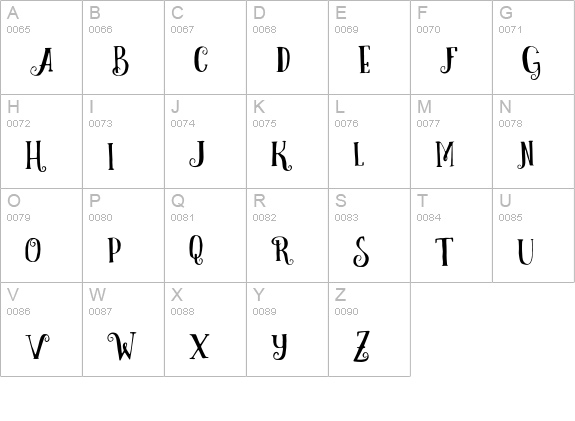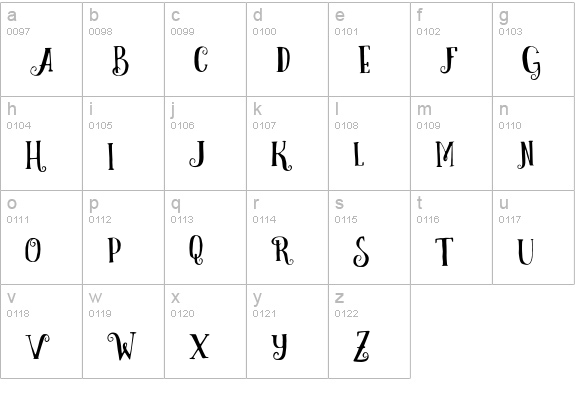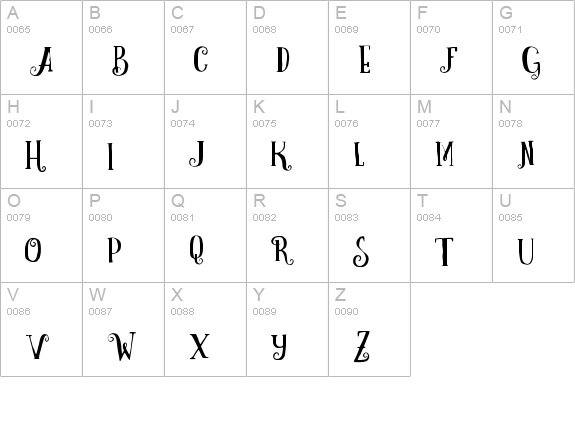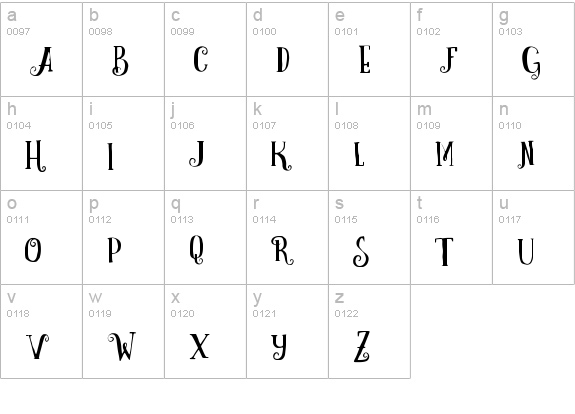
Curely Font Details
Curely font is a stunning display typeface that exudes a sense of playfulness and charm. With its bold and curvaceous letterforms, it is sure to grab attention and make a statement in any project. This font is not only visually appealing but also highly versatile, making it suitable for a wide range of design applications. Whether you're creating eye-catching headlines, logos, or branding materials, Curely font will add a touch of whimsy and personality to your designs. But what sets Curely font apart from other typefaces is that it is free. Yes, you read that right. This fabulous font is freely available to download at FontsMarket.com. This means that you can enhance your designs with this unique and captivating font without having to spend a dime. With Curely font, you can unleash your creativity and explore endless possibilities in your design projects. Its smooth curves and artistic flair will bring a sense of joy and excitement to your work, making it truly stand out from the crowd. So why wait? Head over to FontsMarket.com and get your hands on Curely font today. It's time to elevate your designs and make a lasting impression with this delightful and freely accessible typeface.